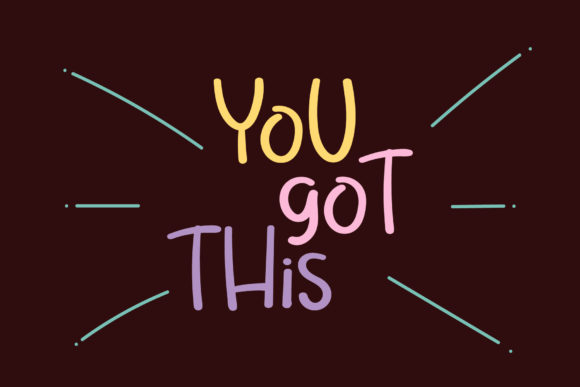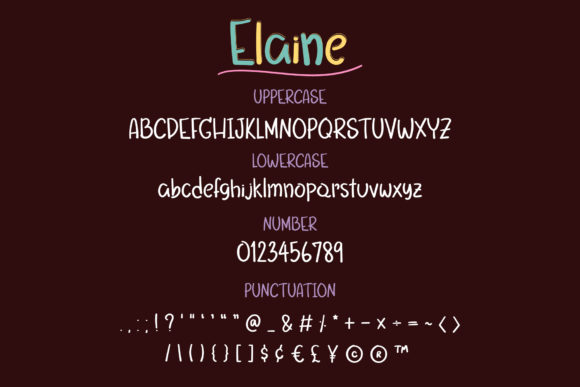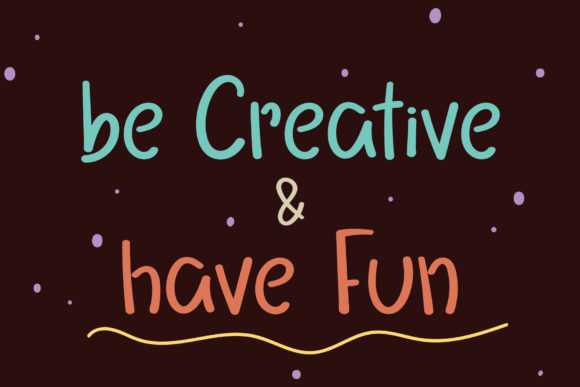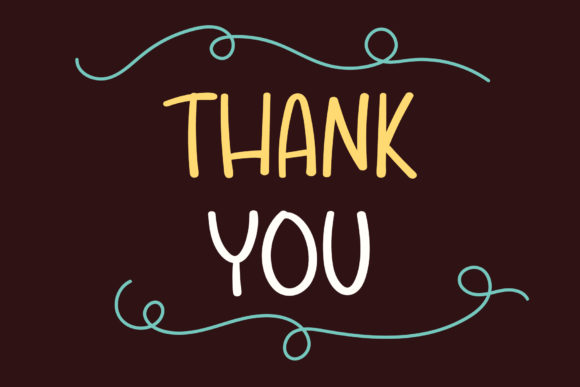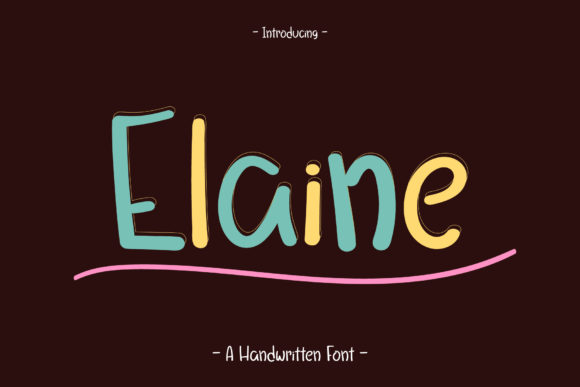
Elaine Font: The Sweet and Versatile Handwritten Font for Your Designs
Are you looking for a font that can add a touch of warmth and personality to your designs? Look no further than Elaine Font, a sweet and versatile handwritten font that is sure to become a true favorite. With its casual charm and down-to-earth feel, Elaine is the perfect choice for a wide range of design projects.
What Makes Elaine Font So Special?
Elaine Font is a carefully handcrafted font that is designed to be both beautiful and functional. Its unique, handwritten style gives it a personal and approachable feel that is perfect for designs that need to connect with their audience on a more personal level. Whether you’re creating a logo, a headline, or a body of text, Elaine Font is sure to make your design stand out.
One of the things that sets Elaine Font apart from other fonts is its versatility. It can be used in a wide range of contexts, from busy backgrounds to standalone headlines, and it always looks great. The font is also highly legible, making it perfect for use in both print and digital designs.
The Benefits of Using Elaine Font in Your Designs
There are many benefits to using Elaine Font in your designs. Here are just a few:
- Casual Charm: Elaine Font has a casual, down-to-earth feel that makes it perfect for designs that need to connect with their audience on a more personal level.
- Versatility: Elaine Font can be used in a wide range of contexts, from busy backgrounds to standalone headlines.
- Legibility: The font is highly legible, making it perfect for use in both print and digital designs.
- Unique Style: Elaine Font has a unique, handwritten style that gives it a personal and approachable feel.
How to Use Elaine Font in Your Designs
Elaine Font is easy to use in a wide range of design projects. Here are a few ideas to get you started:
- Logos: Use Elaine Font to create a unique and memorable logo for your business or brand.
- Headlines: Use Elaine Font to create eye-catching headlines for your website, social media, or marketing materials.
- Body Text: Use Elaine Font to add a personal touch to your body text, making it more approachable and engaging.
- Signage: Use Elaine Font to create eye-catching signage for your business or event.
Tips for Getting the Most Out of Elaine Font
Here are a few tips for getting the most out of Elaine Font:
- Experiment with Different Sizes: Elaine Font looks great in a wide range of sizes, from small body text to large headlines.
- Play with Color: Elaine Font looks great in a wide range of colors, from bright and bold to subtle and pastel.
- Combine with Other Fonts: Elaine Font pairs well with a wide range of other fonts, making it easy to create a unique and visually appealing design.